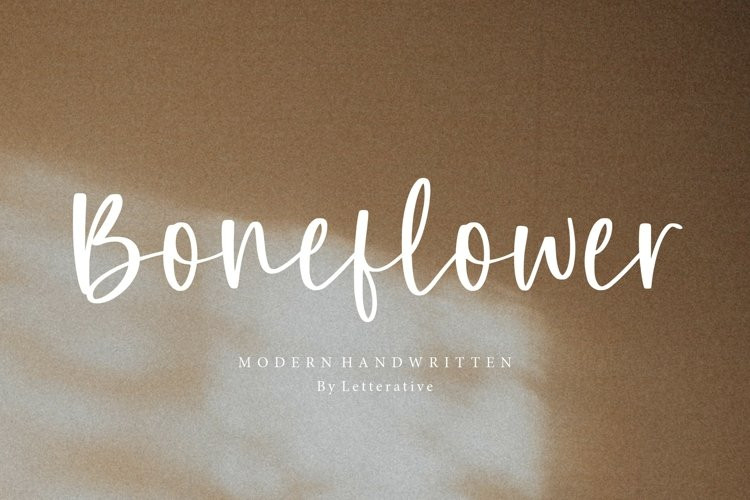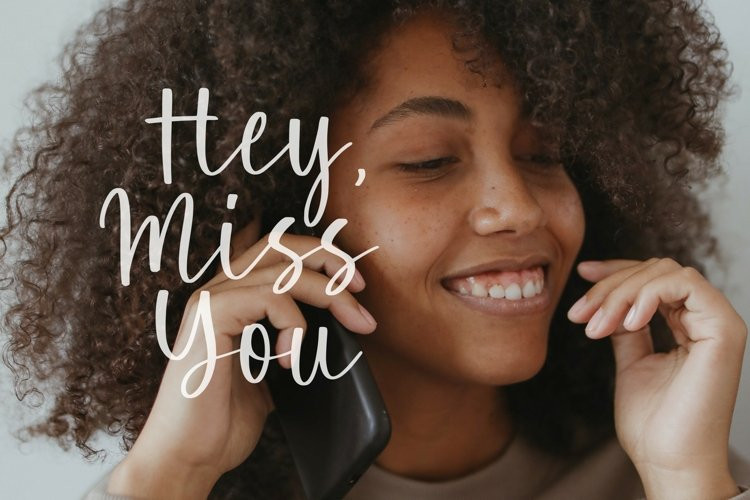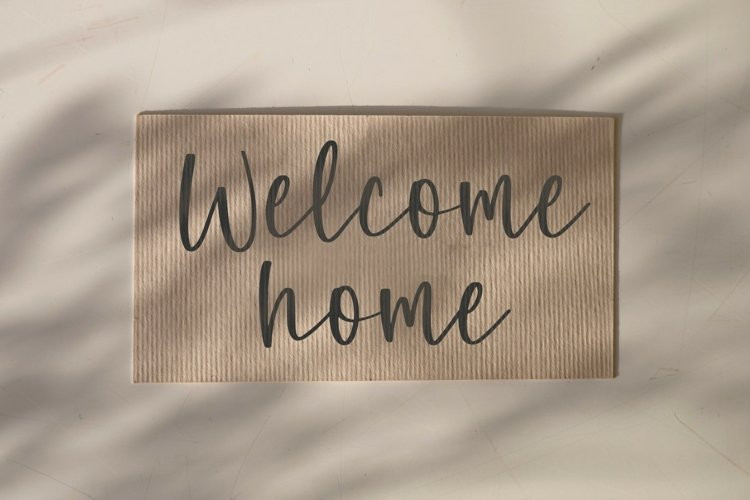
Boneflower Font
Boneflower FontIntroducing by Letterative Studio : Boneflower Font
Boneflower is a Modern Handwritten Font
Boneflower is a dazzling script font. This font is neatly crafted and highly detailed. Whatever the topic, this font will be a wonderful asset to your font library, as it has the potential to enhance any creation.